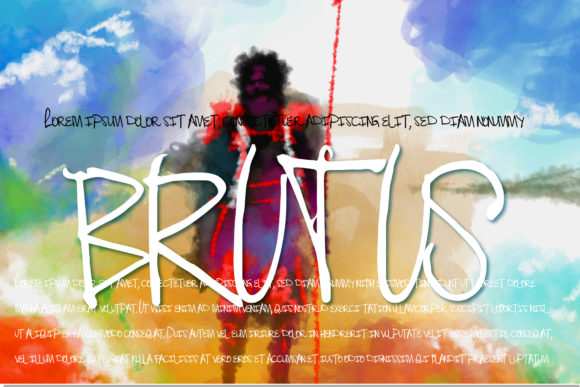
Prepare to be captivated by Brutus, a font that radiates fun, quirks, and authenticity. Embark on a creative journey where imagination meets reality, and transform your designs into remarkable standouts. Brutus, a handcrafted masterpiece, dances across the screen, leaving a trail of enchantment in its wake. Its dynamic personality shines in a symphony of styles, from lively backgrounds to striking headlines, effortlessly commanding attention.
With Brutus as your creative weapon, say goodbye to ordinary and hello to extraordinary. Unleash your imagination and witness the transformation of your design dreams into tangible masterpieces. Brutus, a versatile chameleon, adapts seamlessly to any context, lending its charm to a kaleidoscope of projects, from elegant invitations to playful social media posts. The possibilities are boundless, inviting you to explore new creative horizons.
Picture this: Brutus adorning the cover of your latest e-book, captivating readers with its whimsical charm. Or envision it gracing your handcrafted posters, adding a touch of playfulness to your message. From vibrant logos that speak volumes to eye-catching blog headers that demand attention, Brutus becomes an integral part of your visual storytelling. Its unique character adds depth and dimension, leaving a lasting impression on your audience.
Welcome to the world of Brutus, a font that ignites creativity, sparks joy, and captivates hearts. Embrace the extraordinary and make your designs shine with a personality that refuses to be ignored. Click the download button and embark on a creative adventure with Brutus as your guiding light. Unleash your imagination and prepare to be amazed by the transformative power of this captivating font.